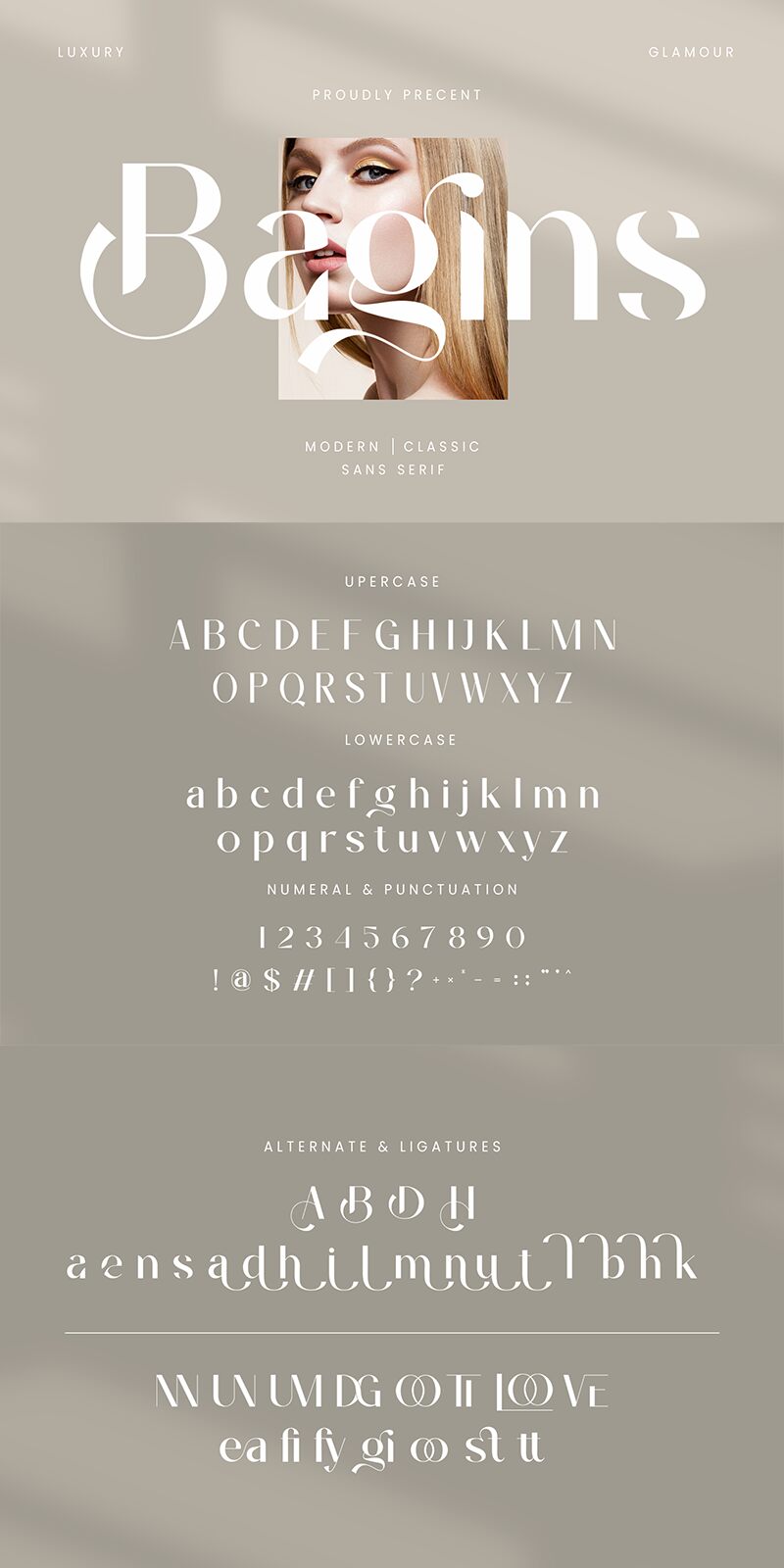
Bagins
Bagins font is a remarkable sans serif typeface presented by Ahmad Riqi. It has a sophisticated, elegant style with interesting details that give it the artistic flair of an arabesque pattern. Overall, the free font has perfectly-balanced characters that are elevated with unique twisting contours around the flat serif edges.
Use this exceptional font to create delicate logo designs, branding presentations, magazine covers and layouts, t-shirt prints, product packaging design, business cards, or menus. Other potential uses might include book titles, photography captions and watermarks, invitation cards for special occasions like weddings or birthdays.